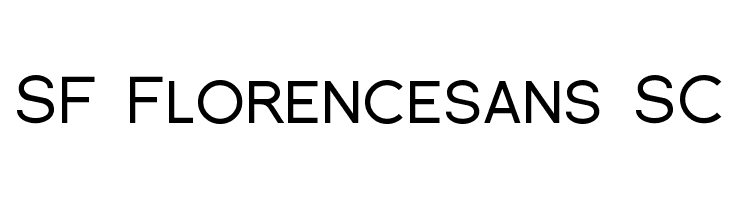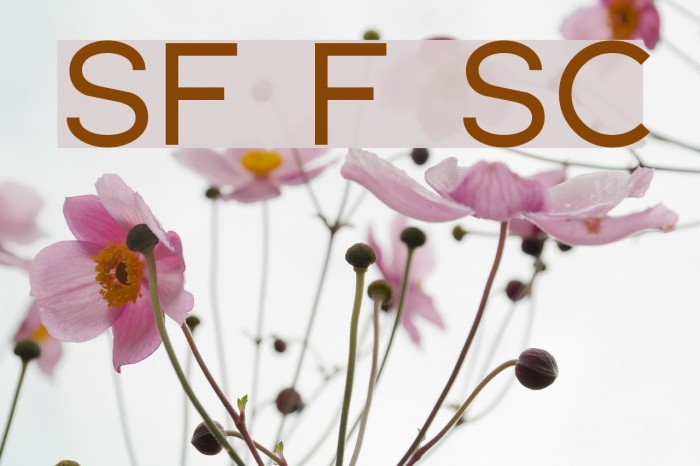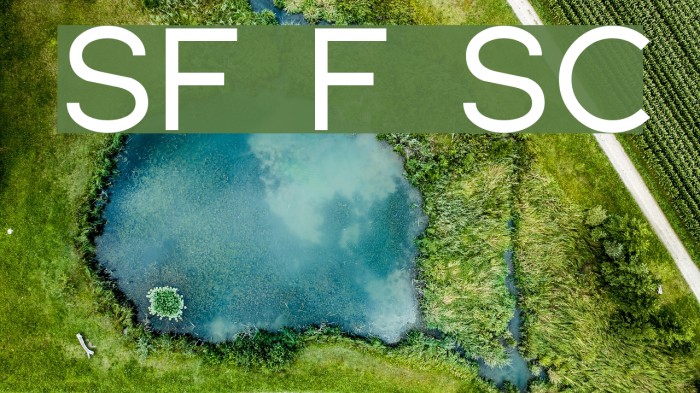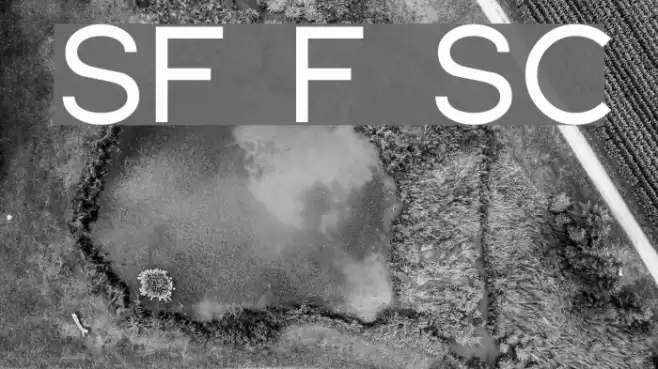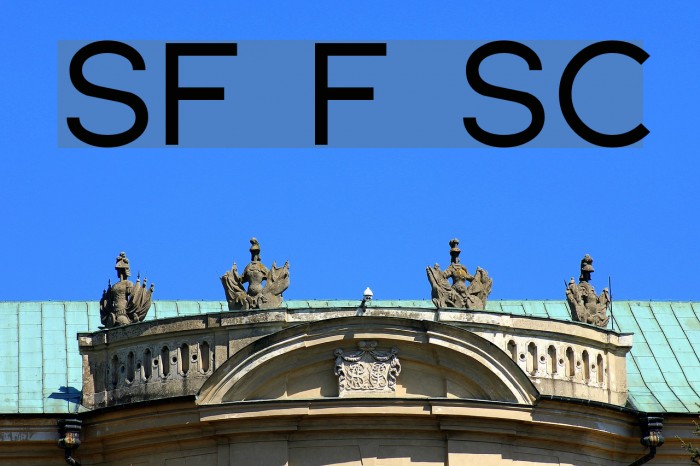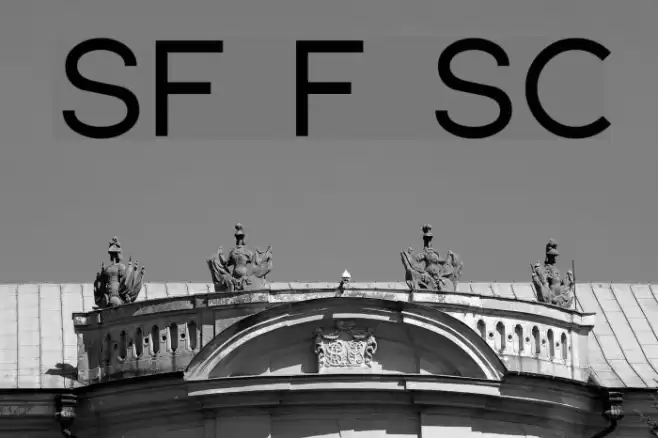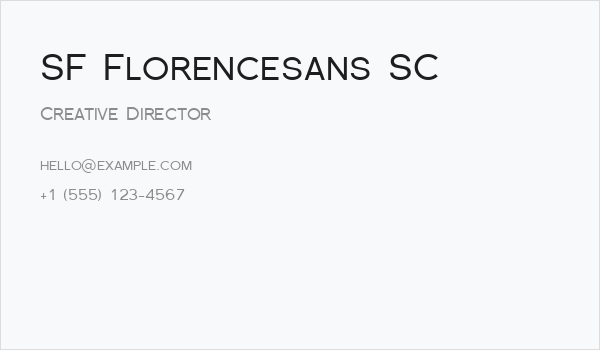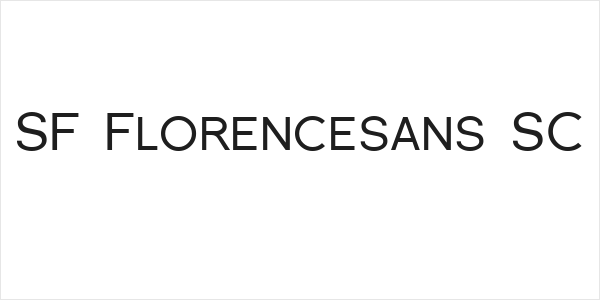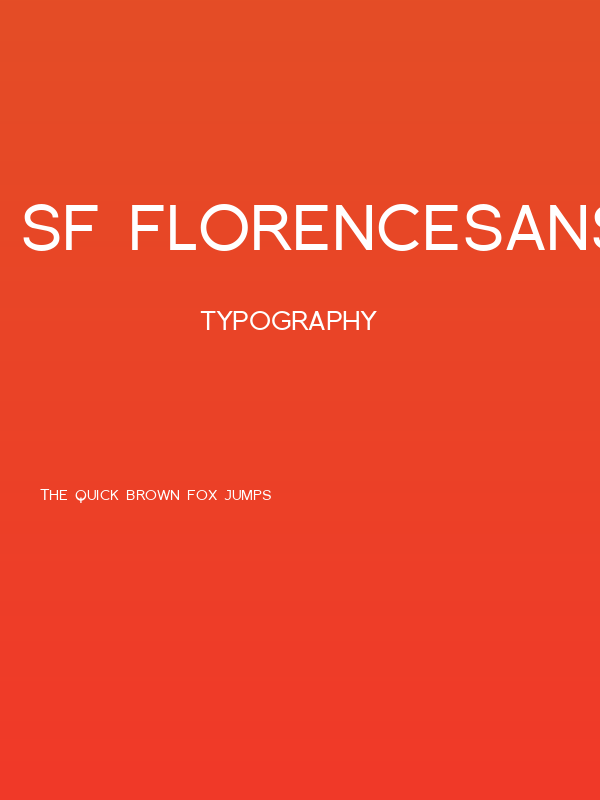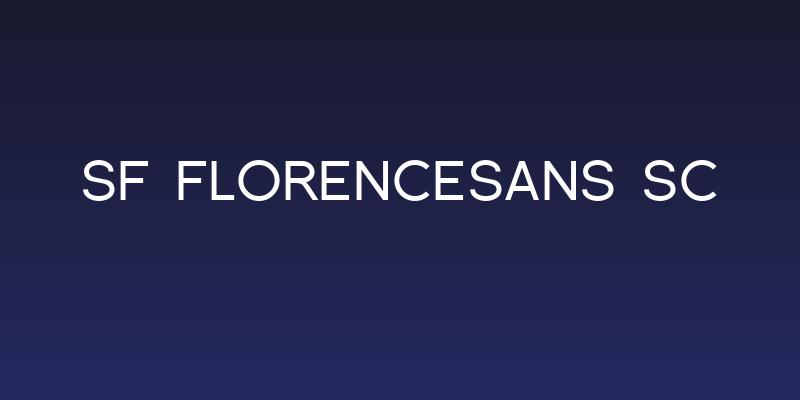
SF Florencesans SC Font
This typeface is a clean and modern sans-serif font characterized by its geometric shapes and uniform stroke widths. The letters are well-proportioned, with a consistent height and width that gives it a balanced and harmonious appearance. The uppercase and lowercase letters are designed with simplicity in mind, making them highly legible. The numerals are clear and distinct, with a straightforward design that complements the overall aesthetic. Special characters are included, maintaining the same geometric style, ensuring versatility in various applications. This font is ideal for projects that require a contemporary and professional look.
Use CaseHeadlines, Body text, Logos
Proposed ProjectsIdeal for corporate branding, web design, advertising, and editorial layouts.